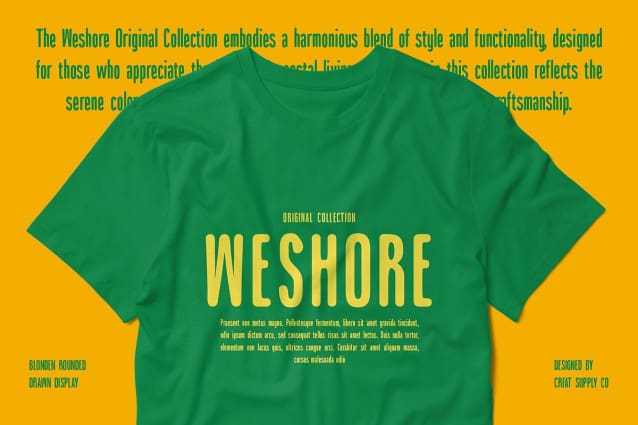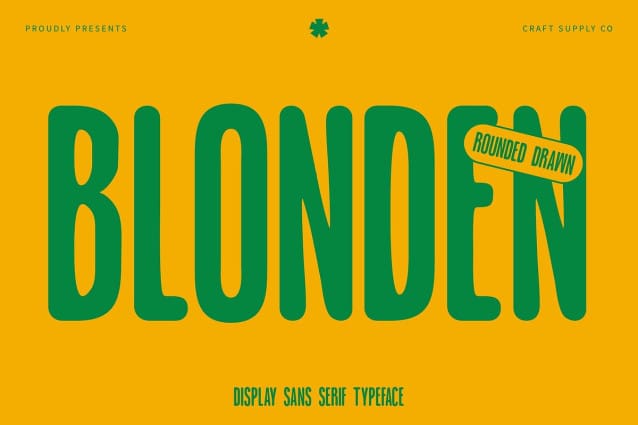
Blonden Rounded Drawn Font
Blonden Rounded Drawn Font – Modern Sans Serif Font with Hand-Drawn Effect. Unique Crafted Design This a modern sans serif font that merges sleek, condensed letterforms with a subtle hand-drawn effect. Its soft, rounded edges create a friendly and approachable appearance, while the hand-drawn quality adds a personal, artisanal touch. This blend of clean, modern lines and crafted details brings a charming, authentic character to any design project.
Playful and Engaging Aesthetic The hand-drawn effect gives this rounded drawn font a whimsical and creative feel, making it an ideal choice for playful branding, children’s designs, and packaging. The font’s smooth and rounded shapes enhance its accessibility and warmth, while the hand-drawn details add texture and visual interest, creating an eye-catching balance between professionalism and creativity.
Versatile Applications This rounded drawn font is perfect for a wide range of design applications, including logos, posters, product labels, and social media graphics. Its versatile nature ensures it can adapt to both formal and casual settings, from creative branding to playful, lighthearted campaigns. The font’s unique, drawn effect gives it a standout appeal that adds personality to any visual identity.